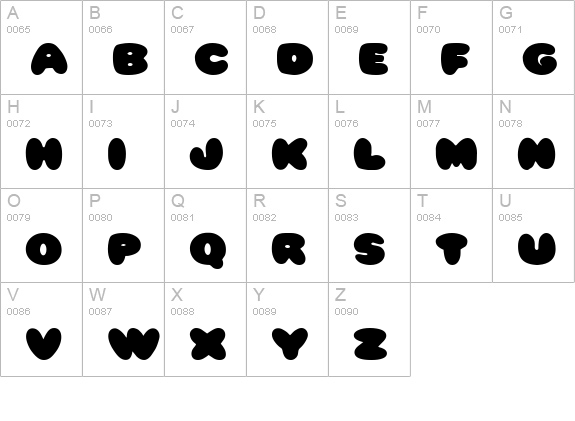
Pleasantly Plump Font Details
Pleasantly Plump font is a charming and playful typeface that exudes warmth and friendliness. Its rounded edges and slightly chubby appearance give it a whimsical and inviting feel, making it perfect for a variety of design projects. This font is ideal for adding a touch of personality and character to your creations, whether it be for branding, packaging, posters, or greeting cards. What's even better is that Pleasantly Plump font is available for free download at FontsMarket.com. You can easily access this delightful font and start using it in your designs right away. With its unique style and versatility, Pleasantly Plump font is sure to bring a touch of joy and creativity to your projects.